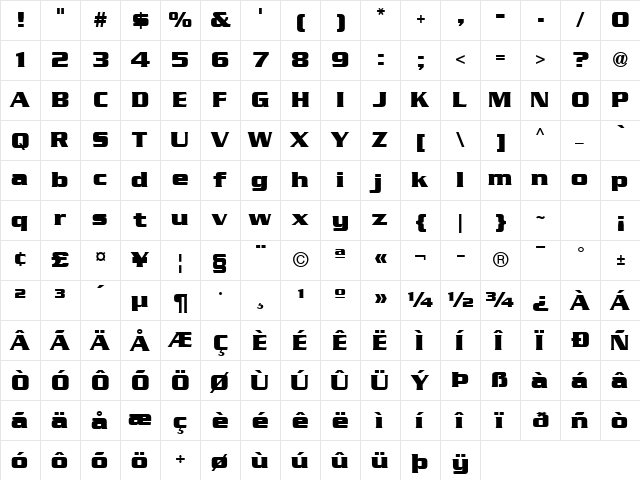
Serpentine ICG Bold
Design Context for Serpentine ICG Typeface
Serpentine ICG is a composed and adaptable typeface that performs quietly and consistently across a wide range of design contexts. The heavy weight commands attention and anchors typographic hierarchies.